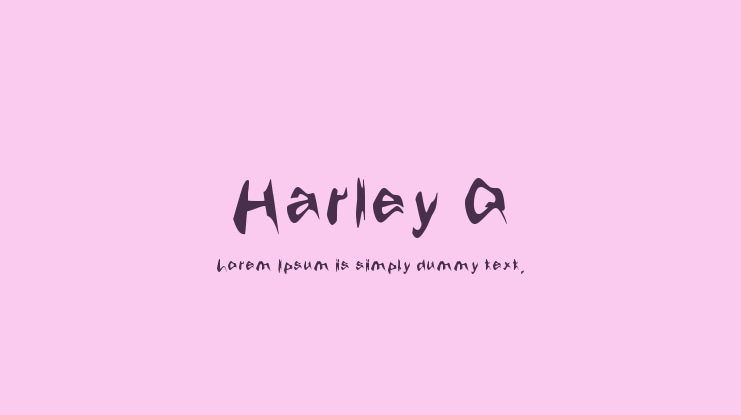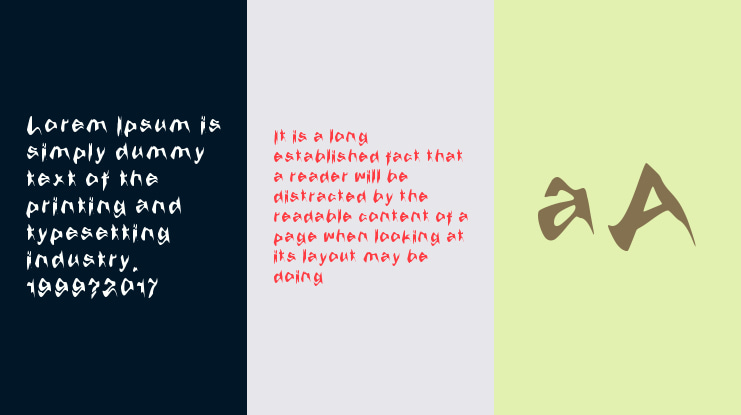
Harley Q Font
Do you like Cos play? Well now you can dress your words as youve seen the movie, you know the charterer so here is HER handwriting. Menacing fantasy comic book book for the DC universe character, Dr Harley Quinn.